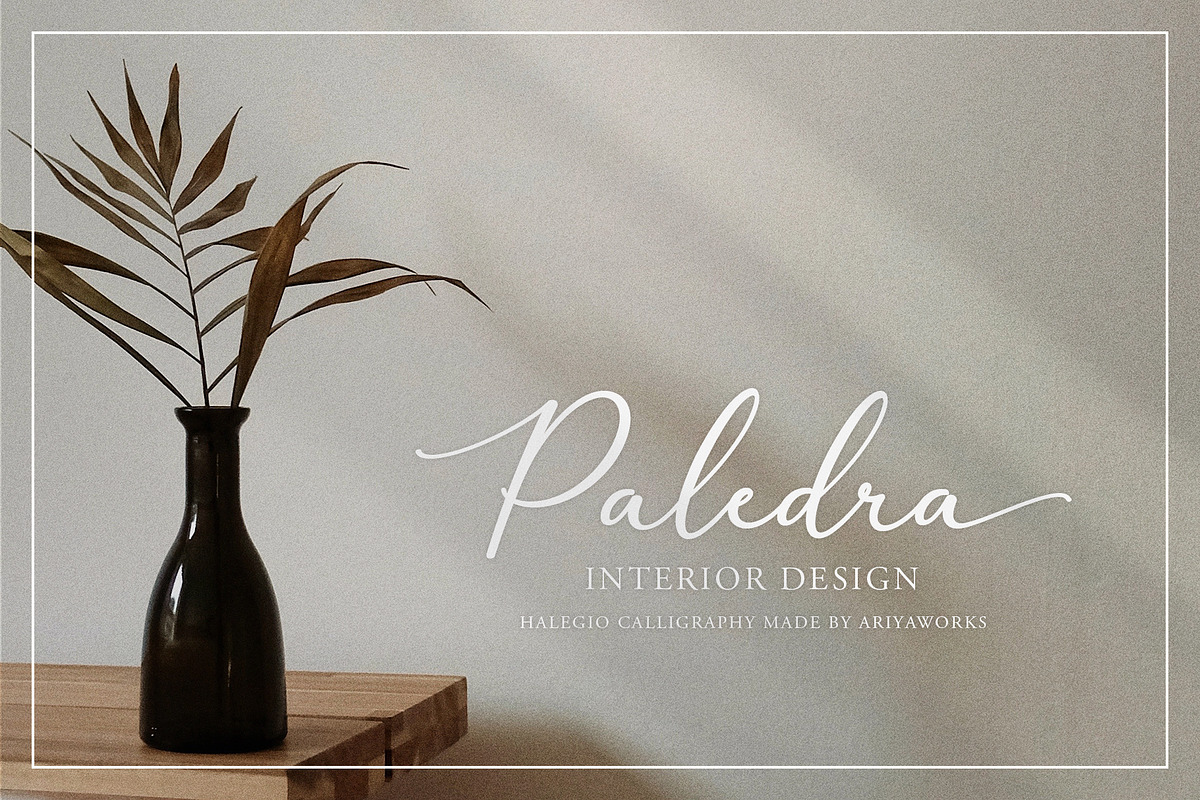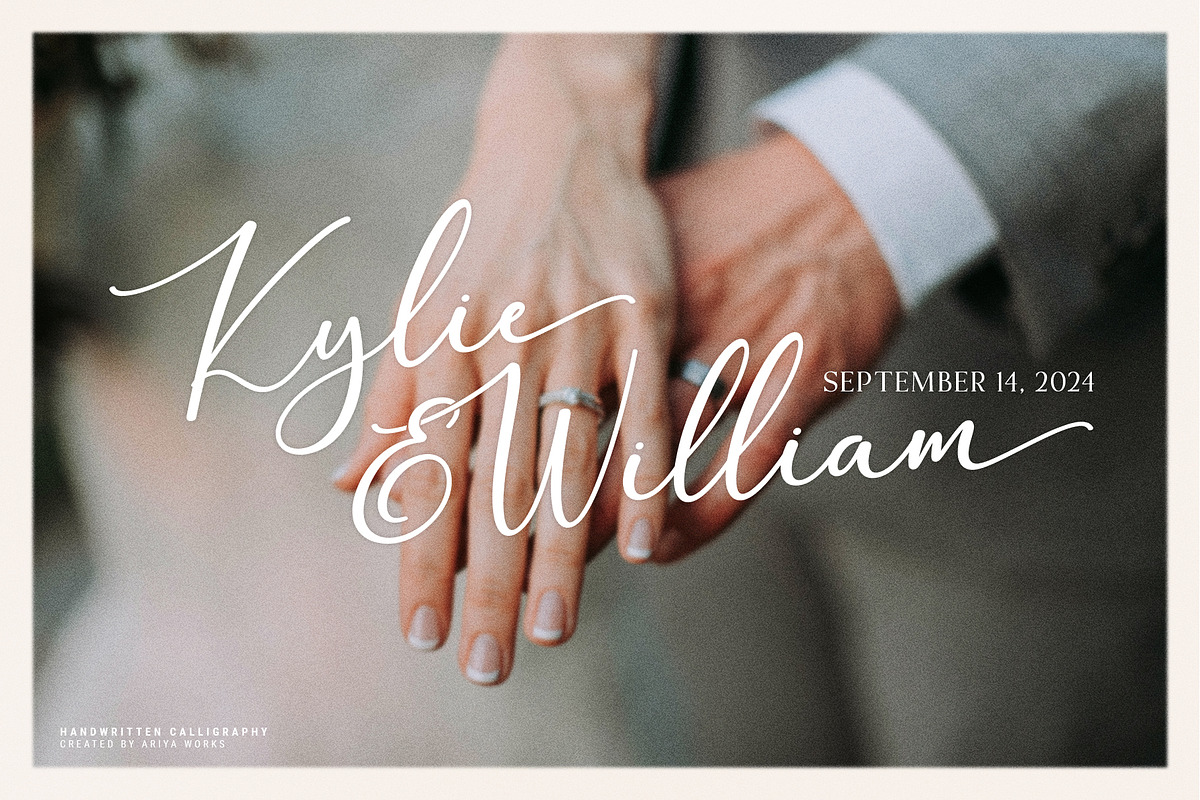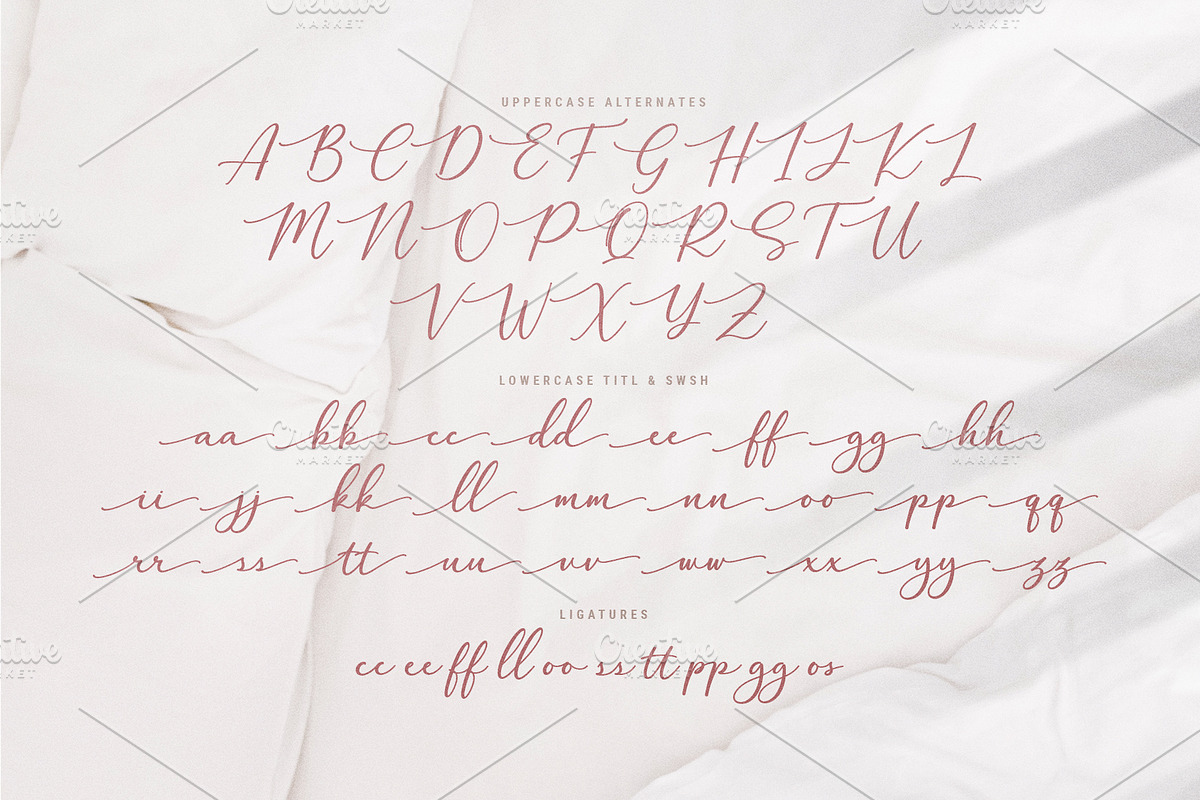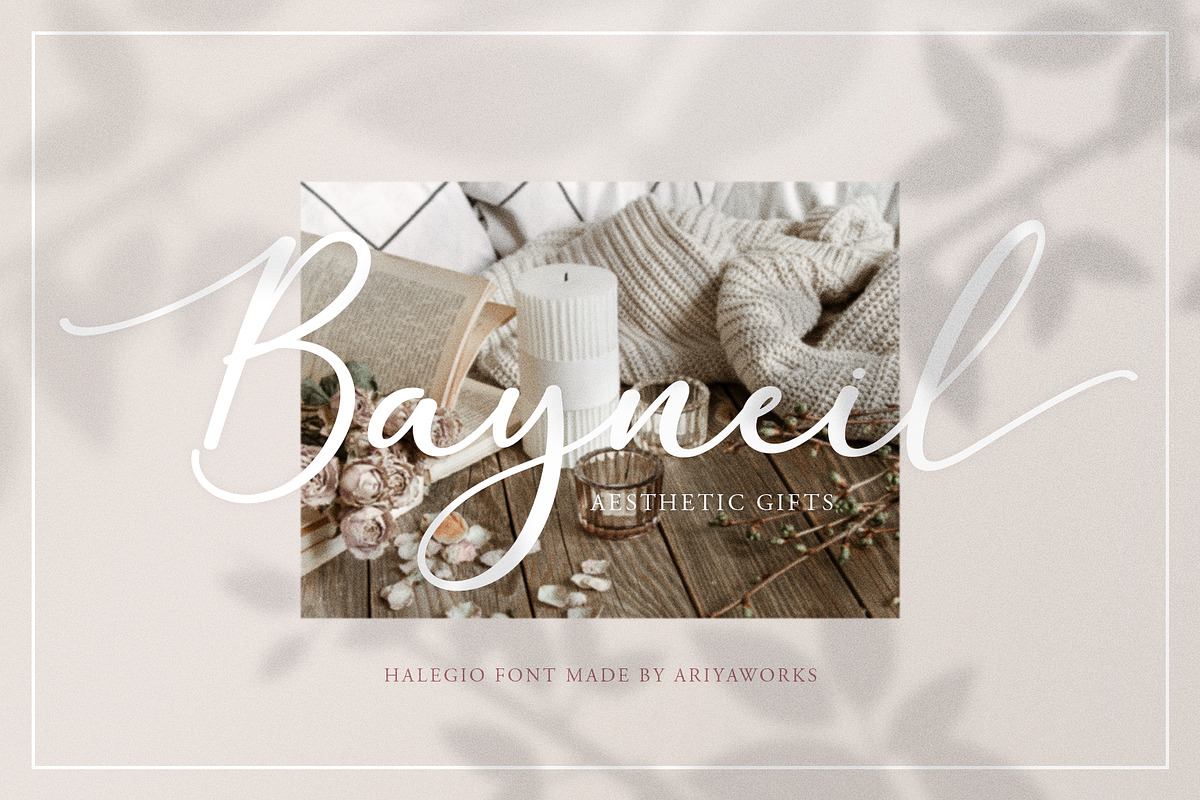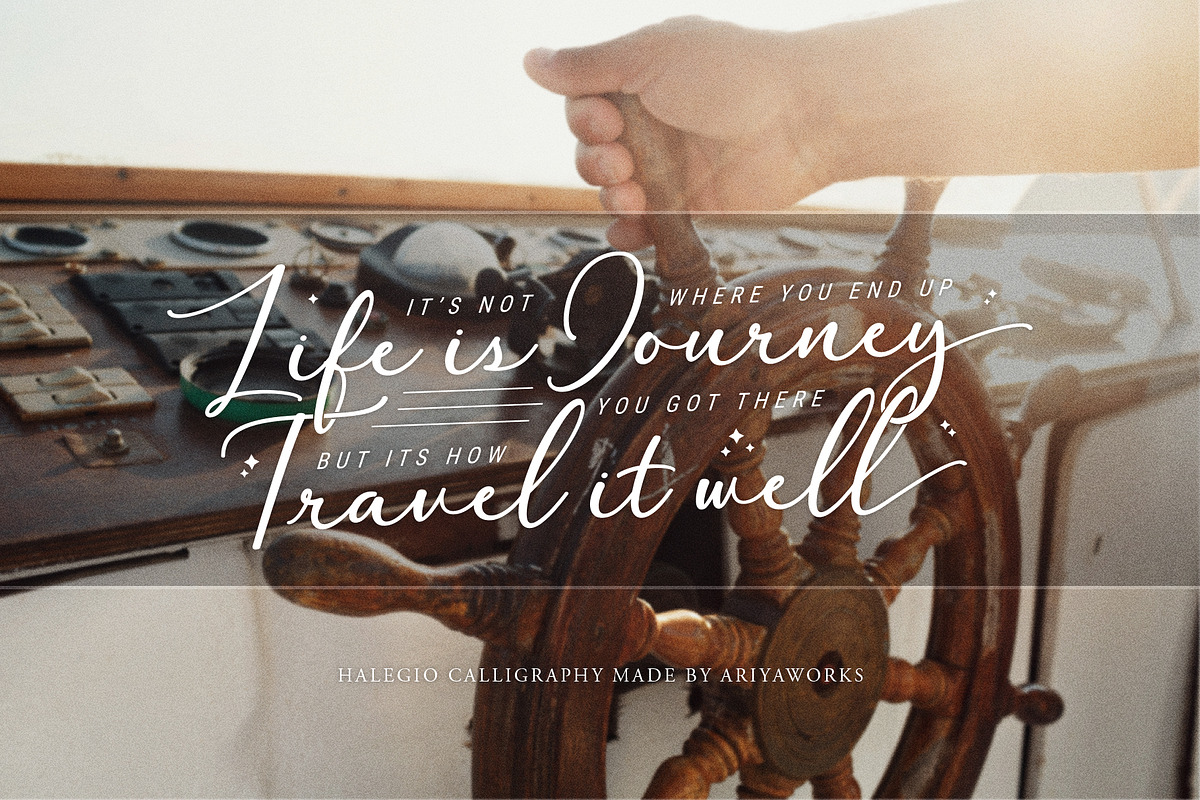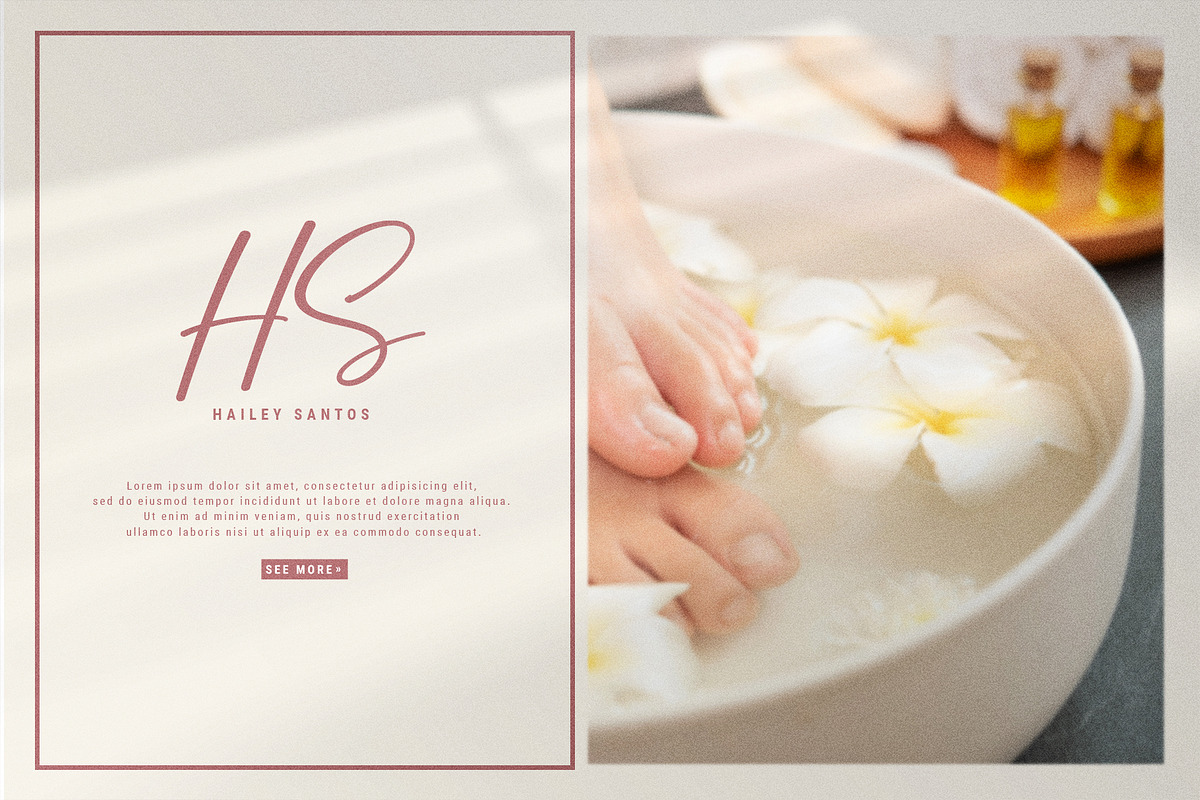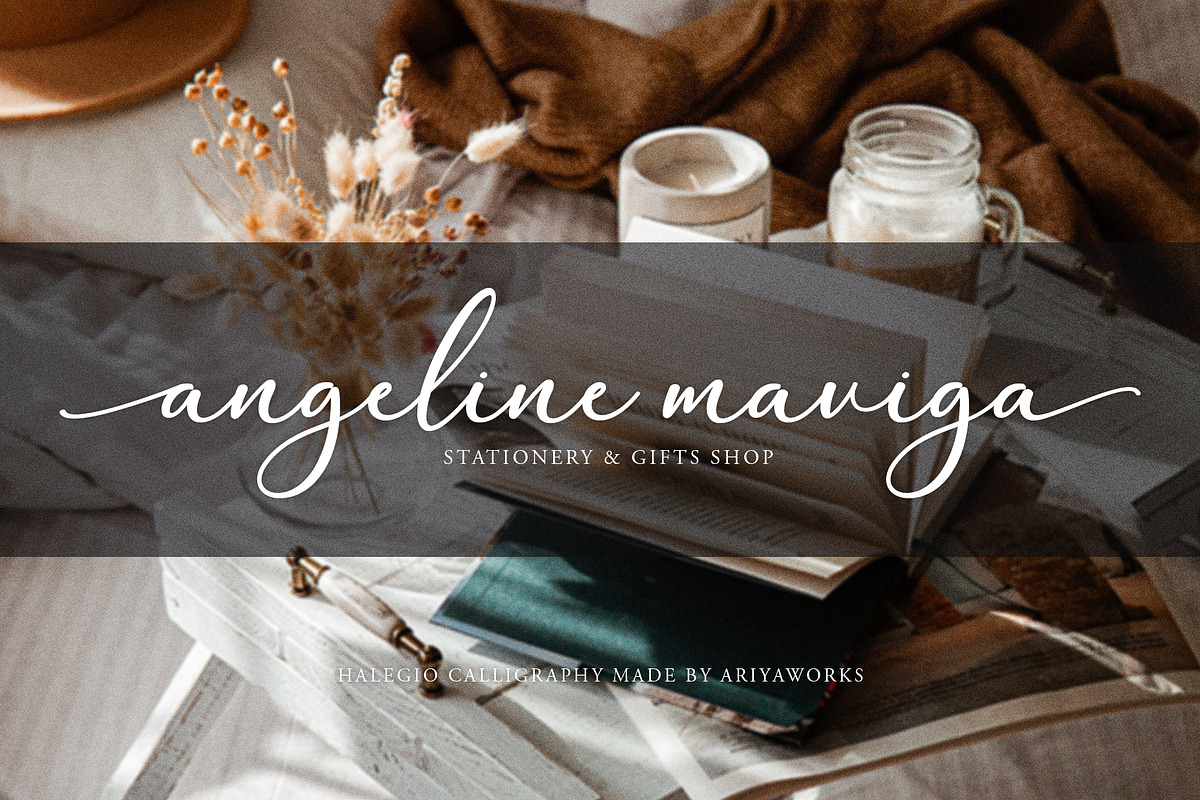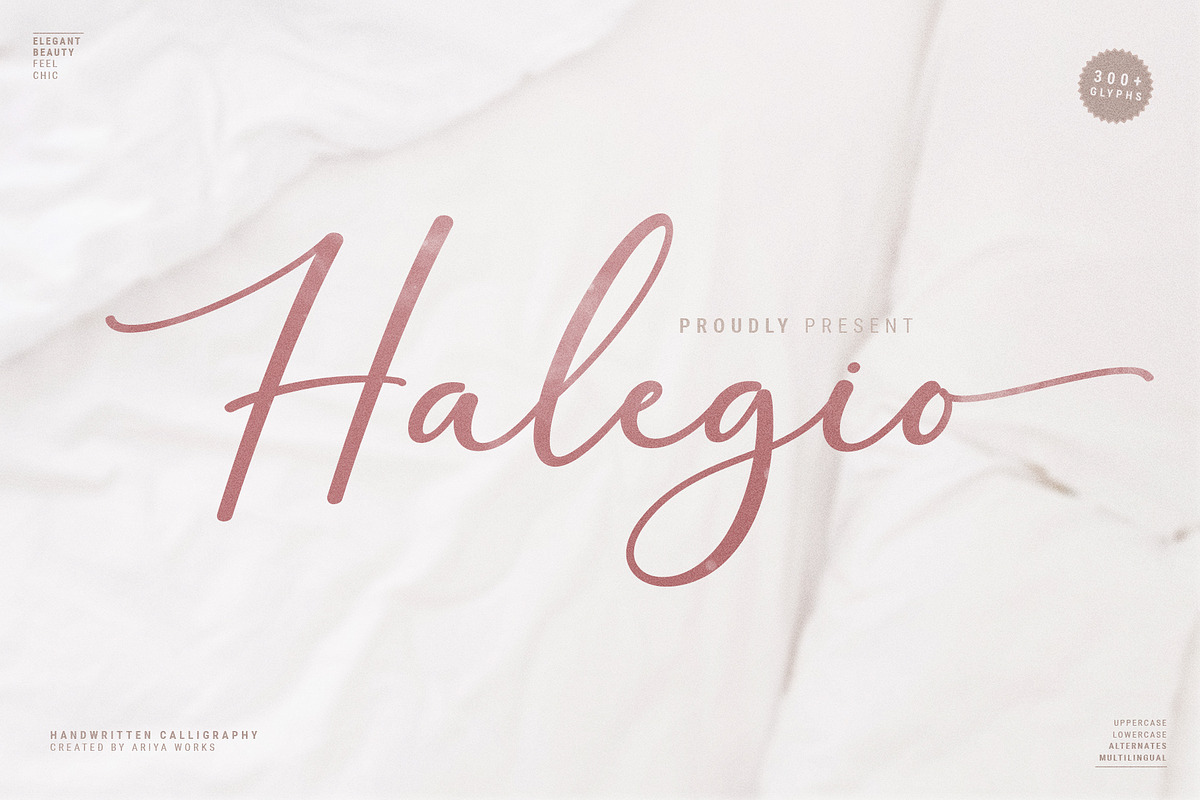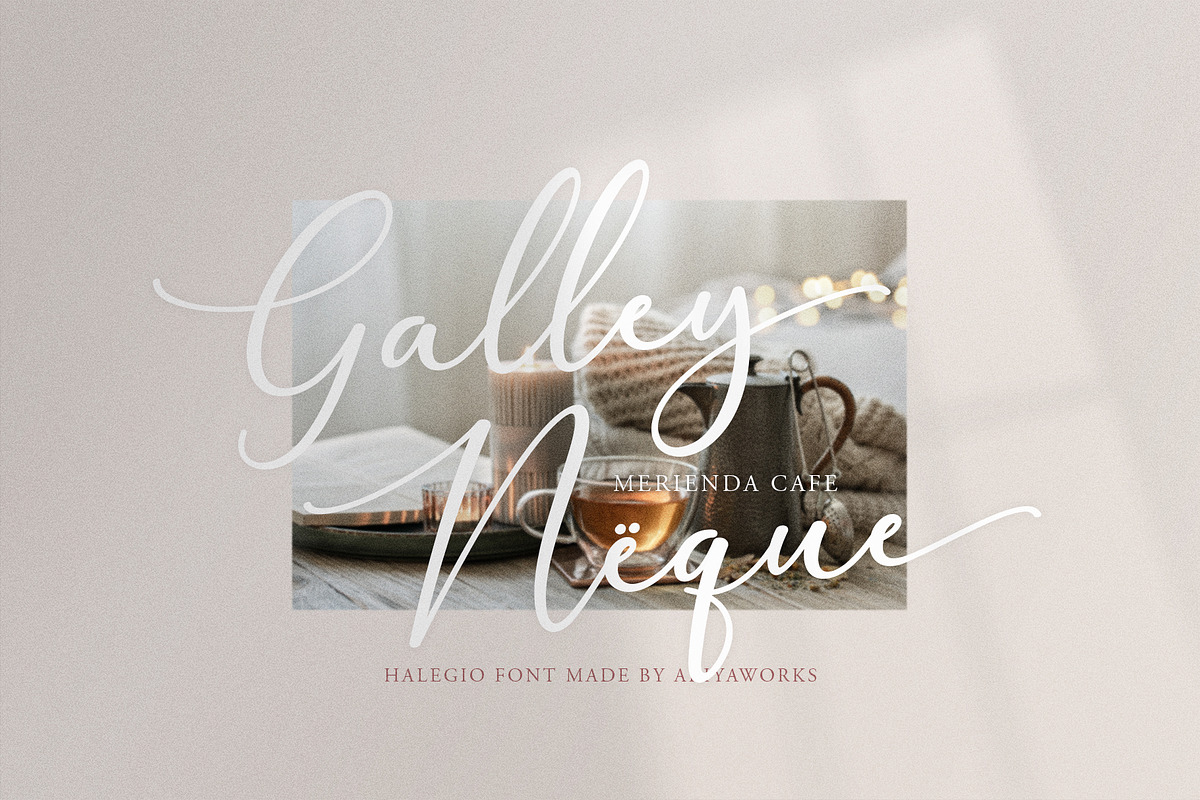
Halegio | Modern Calligraphy Font
Halegio is a calligraphy font, has an elegant and beautiful design. make your design look nice and charming. This font can be used to create feminine logos, clothing, typhography art, design invitations and many more. It offers support for all English characters, multiple opentype features (stylistic alternates and ligature) some characters in multiple languages and standard punctuation marks are included.